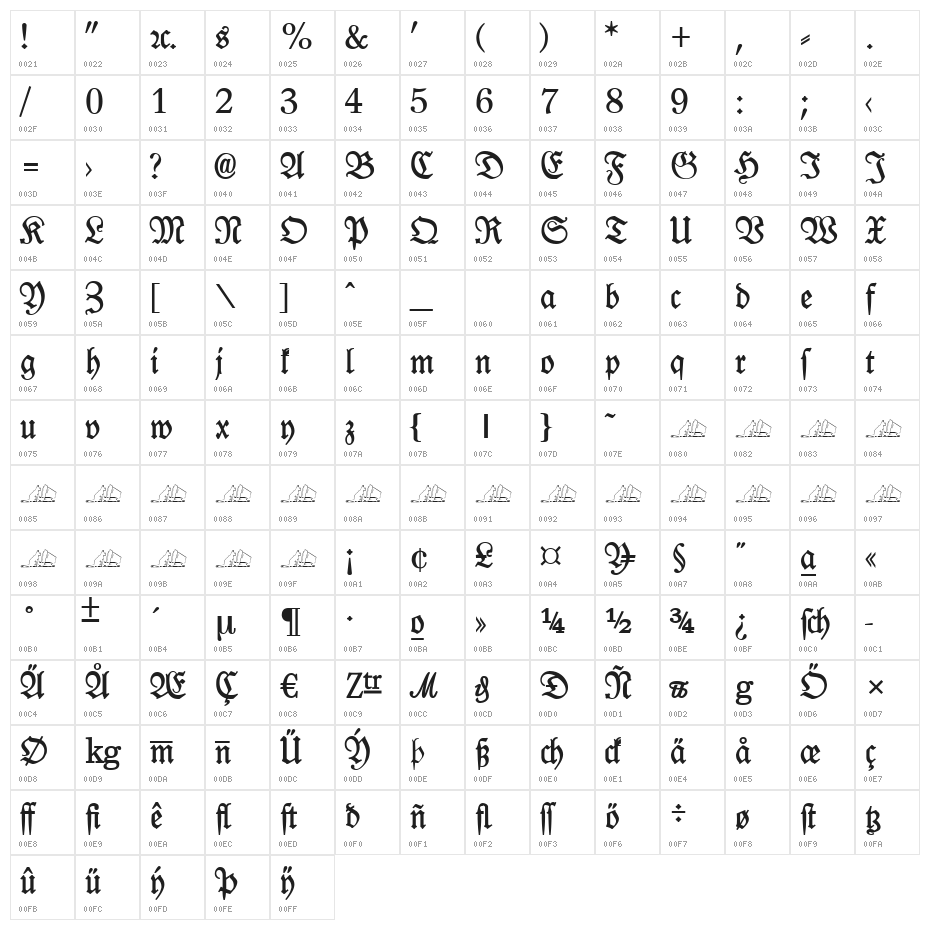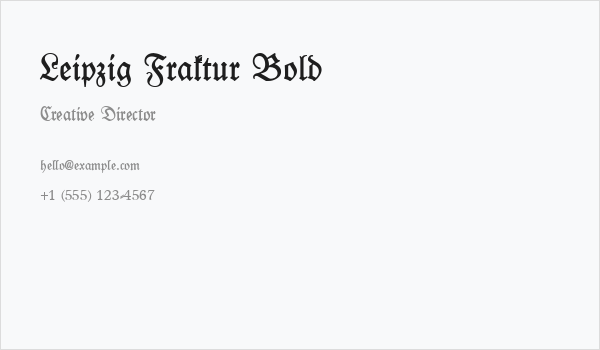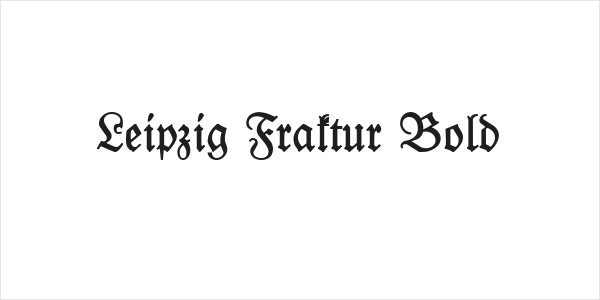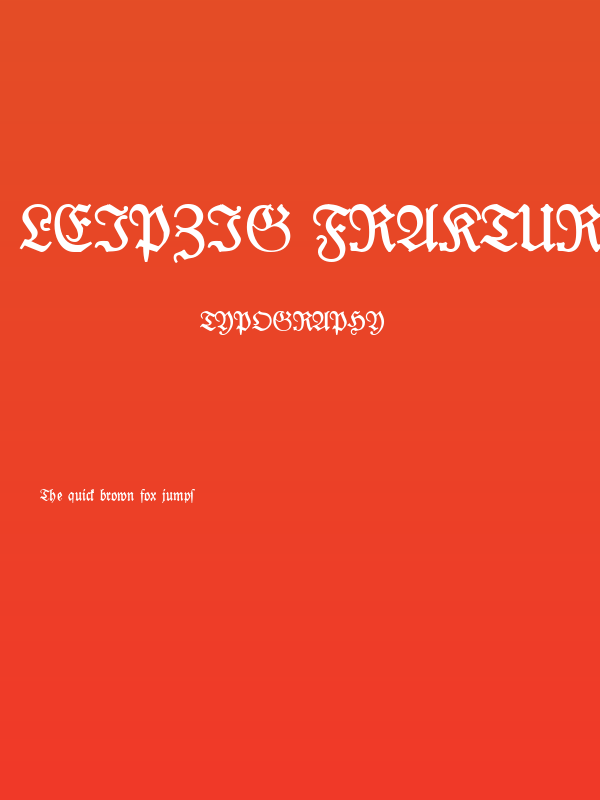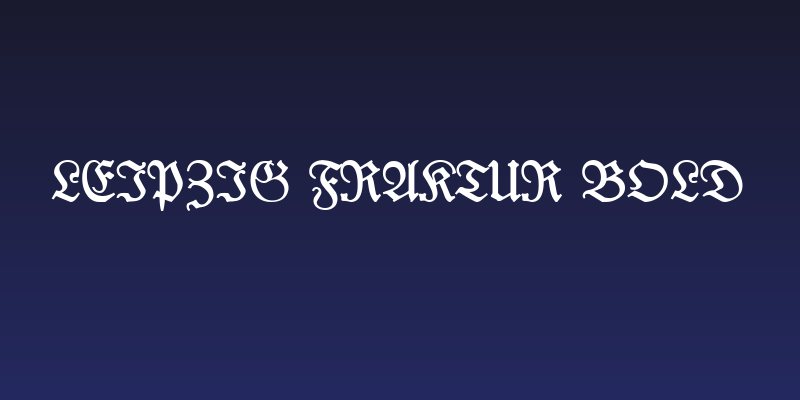
Leipzig Fraktur Bold Font
Leipzig Fraktur Bold Description
This font exhibits a traditional blackletter style, characterized by its ornate and intricate letterforms. The uppercase letters feature sharp, angular lines with elaborate flourishes, while the lowercase letters maintain a consistent gothic aesthetic with pointed arches and strokes. The numerals are bold and maintain the same decorative style, ensuring uniformity across the character set. Special characters are equally detailed, adding to the font's overall historical and formal appearance. This typeface is reminiscent of medieval script, often associated with historical documents and traditional European texts.
| Use Case | Headlines, Logos, Decorative text |
| Proposed Projects | Ideal for historical documents, certificates, book covers, and branding that requires a traditional or medieval aesthetic. |